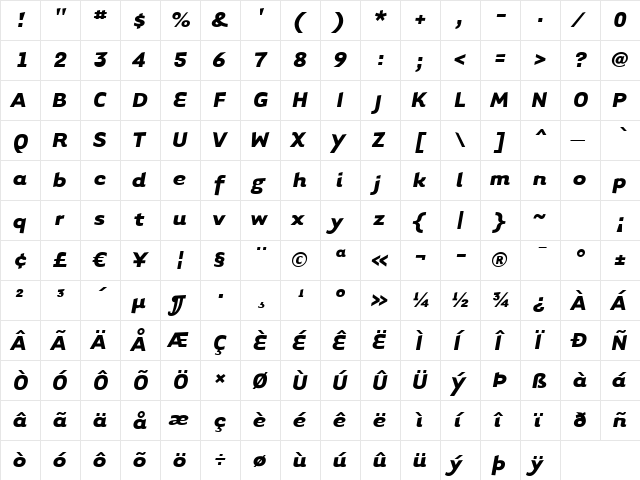
TarzanaWideBoldItalic Regular
Design Context for TarzanaWideBoldItalic Typeface
TarzanaWideBoldItalic offers clean, dependable letterforms without strong stylistic allegiance, making it a practical choice for designers who need flexibility. Its italic angle brings a sense of urgency and motion to the letterforms. Its bold stroke weight gives it real presence on the page.